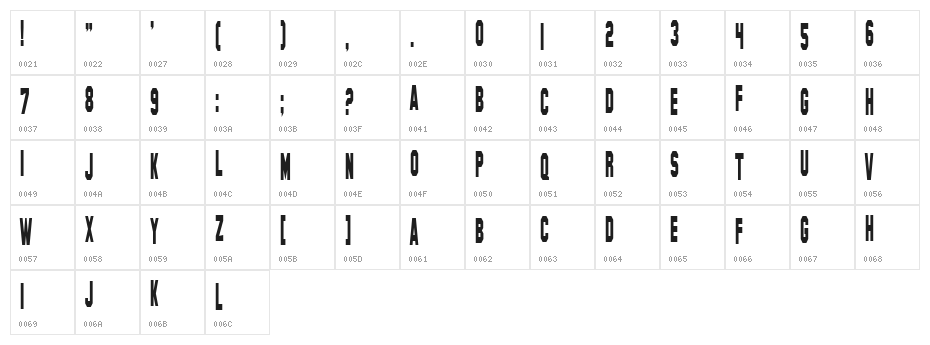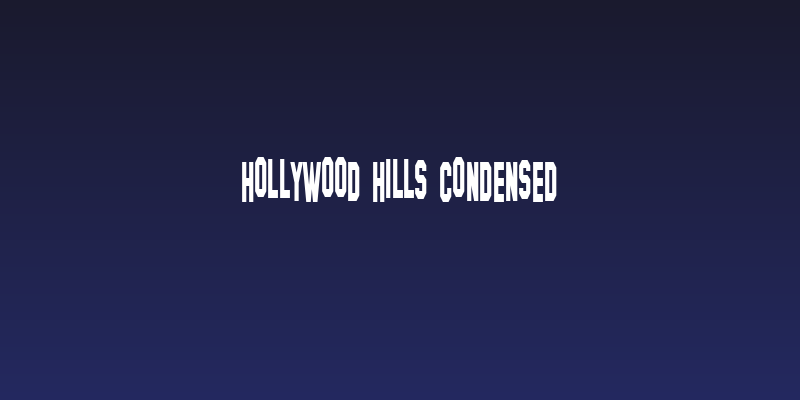
Hollywood Hills Condensed Font
Hollywood Hills Condensed Description
This font features a bold, condensed style with a strong presence. The uppercase letters are tall and narrow, giving a sense of height and elegance, while the lowercase letters maintain a similar condensed form. The numerals are consistent with the overall style, ensuring uniformity across different uses. The font's geometric shapes and clean lines make it ideal for impactful designs. Its condensed nature allows for efficient use of space, making it suitable for headlines and titles where space is limited but impact is necessary.
| Proposed Projects | Ideal for movie posters, magazine covers, and branding materials where a strong, impactful presence is needed. |